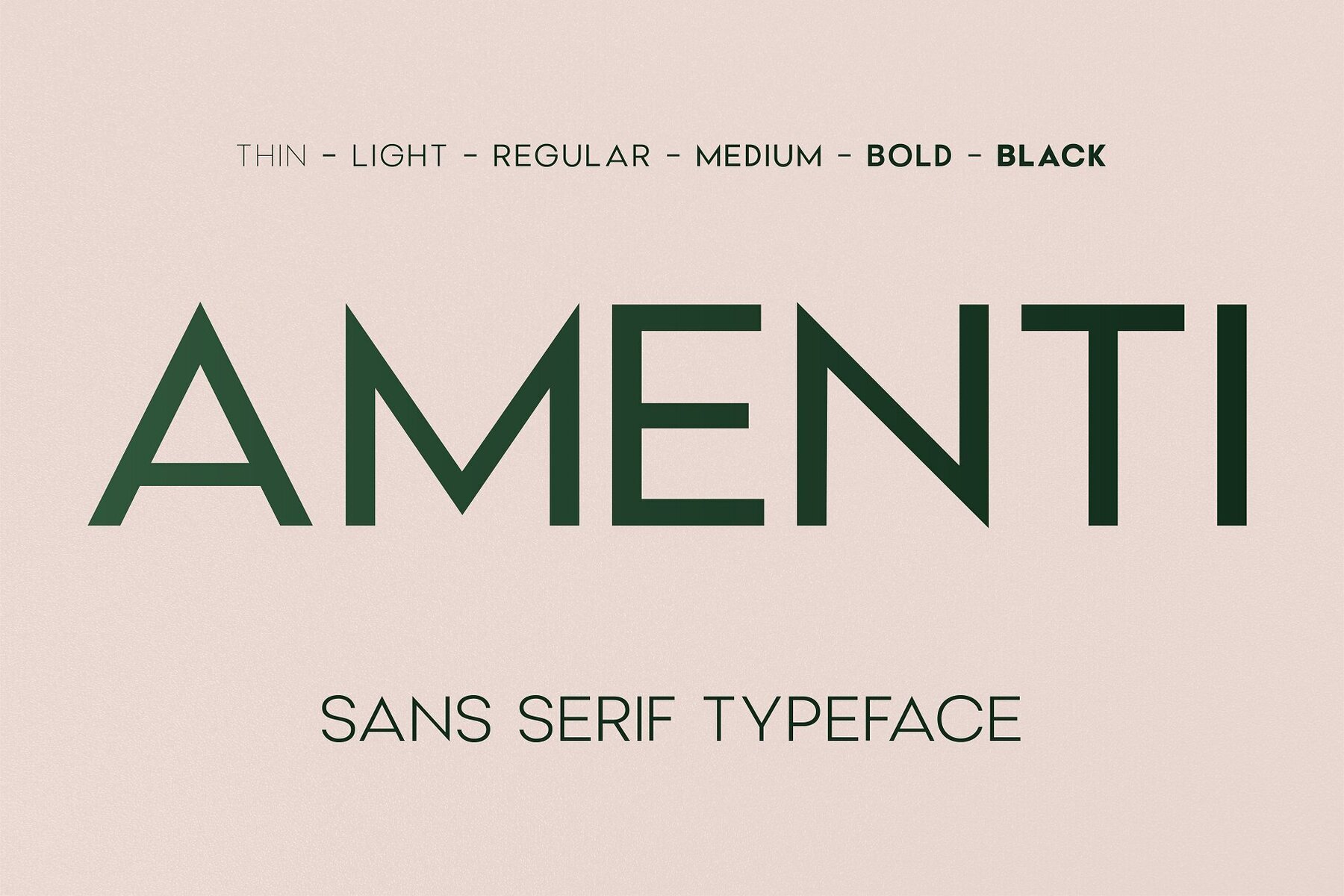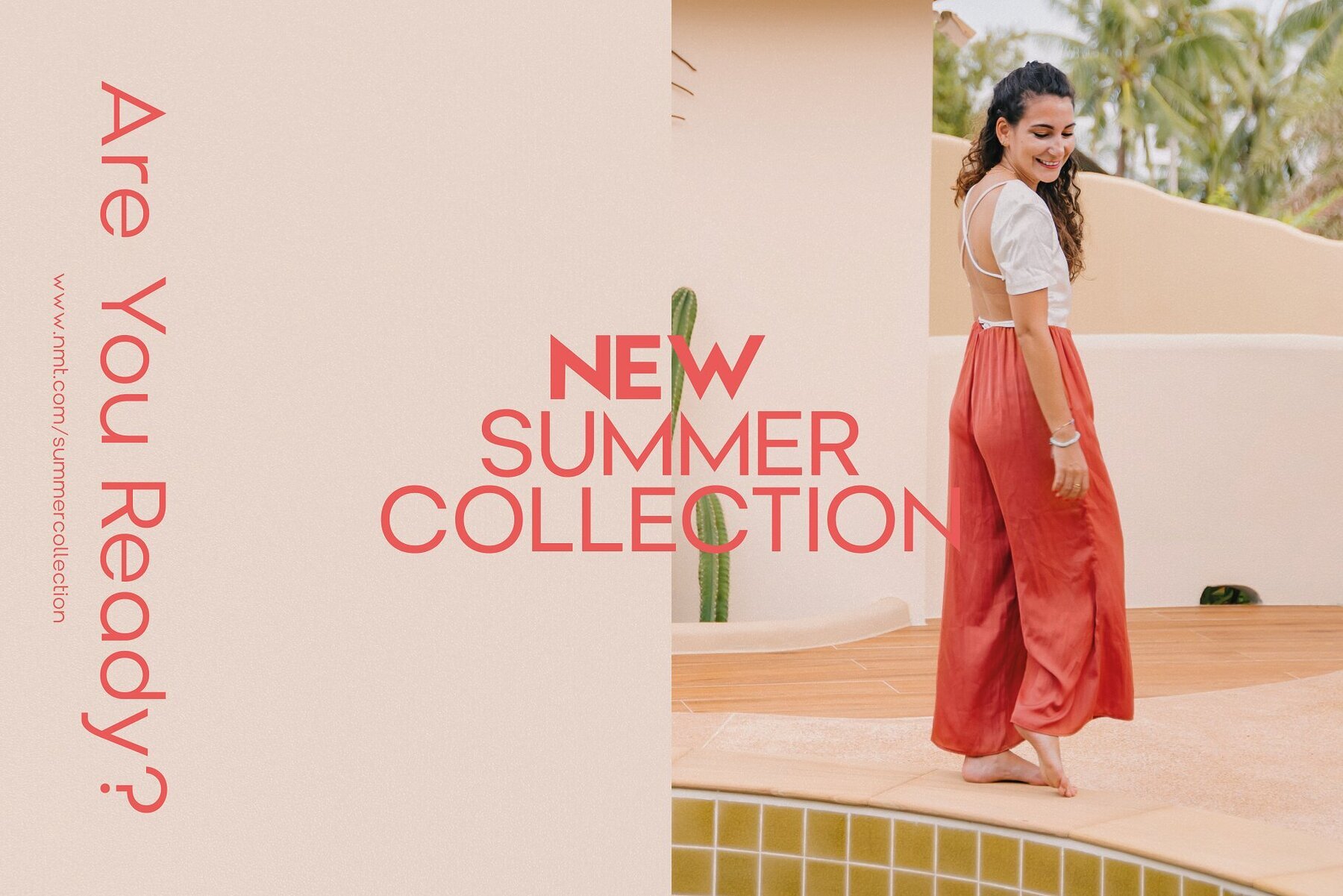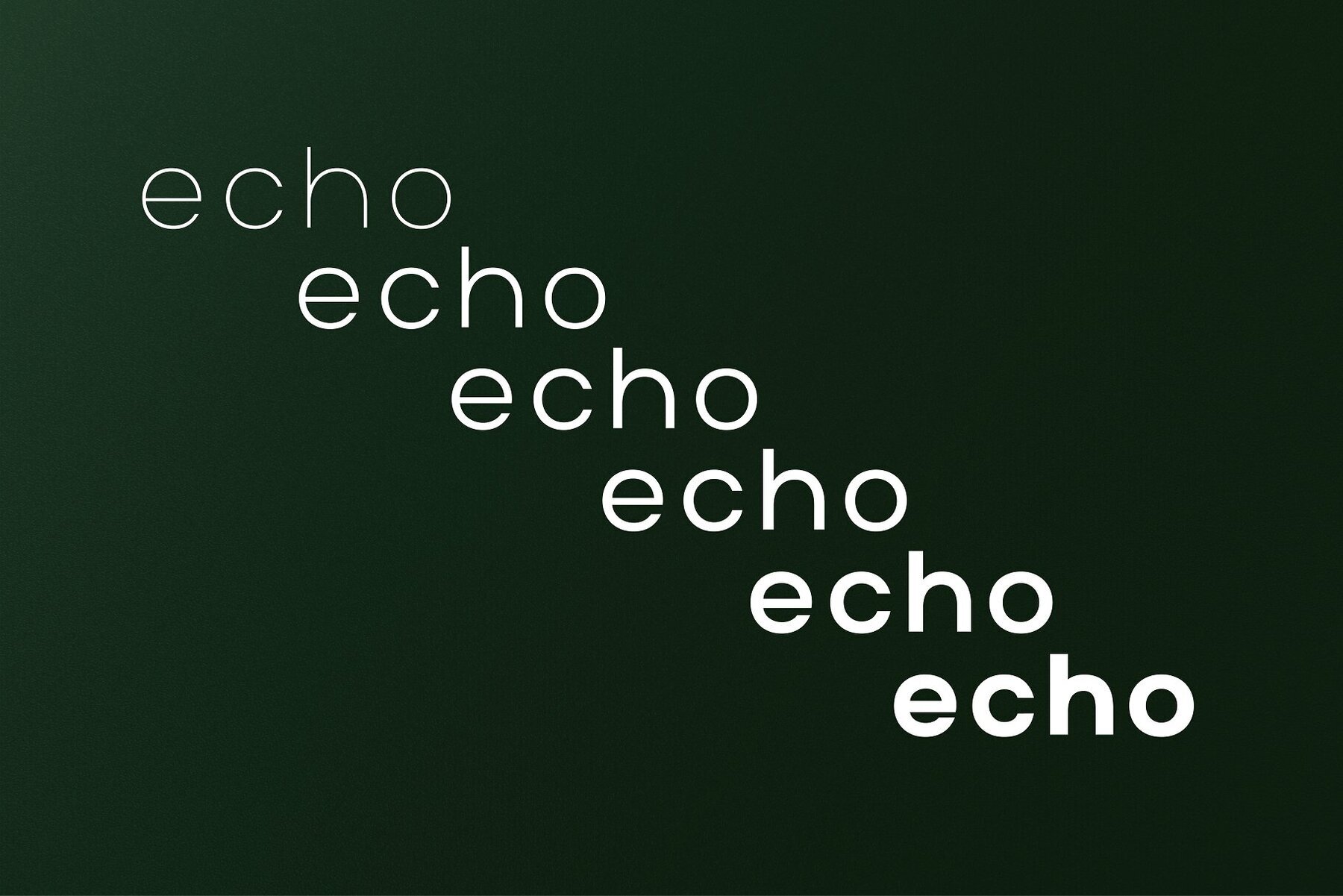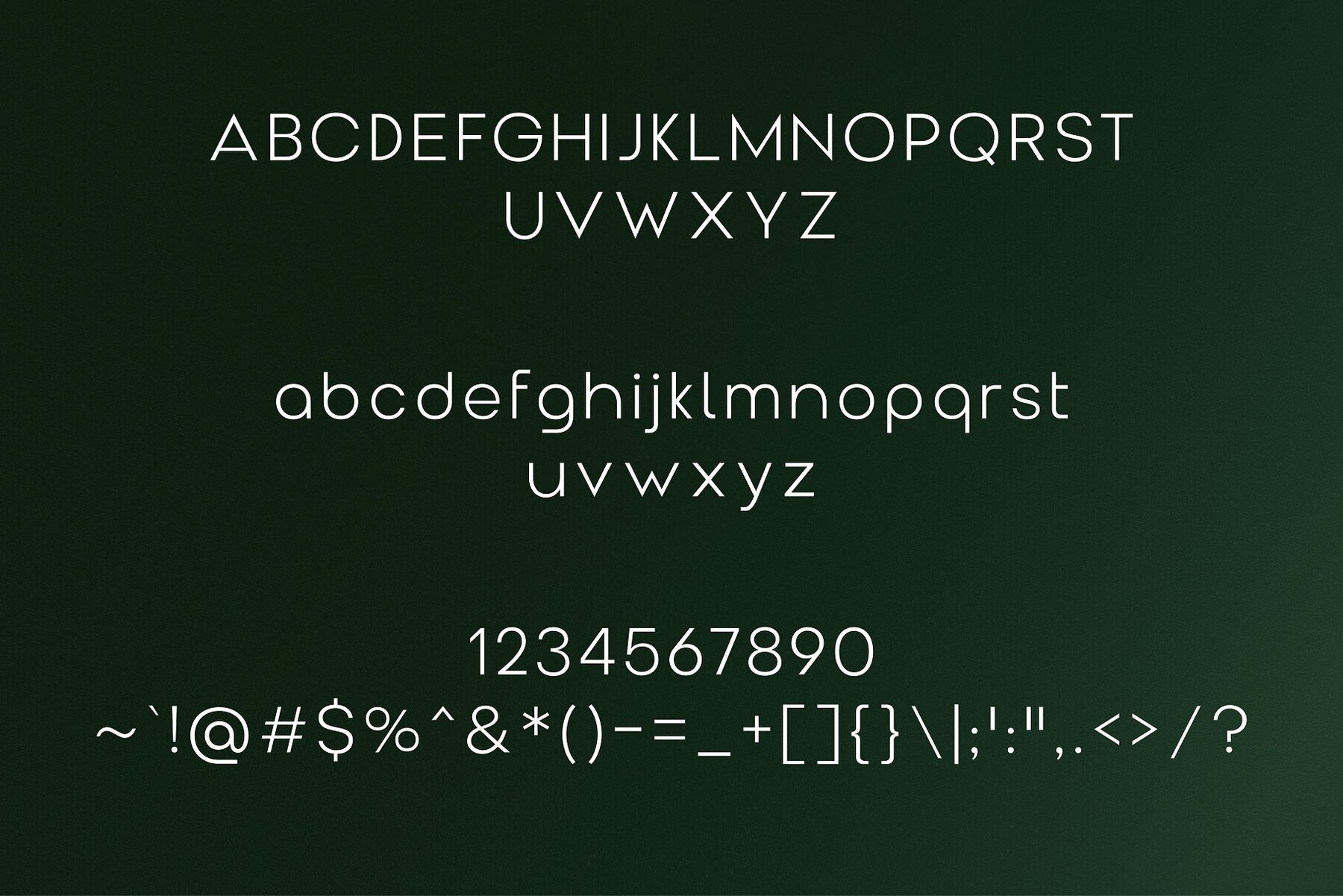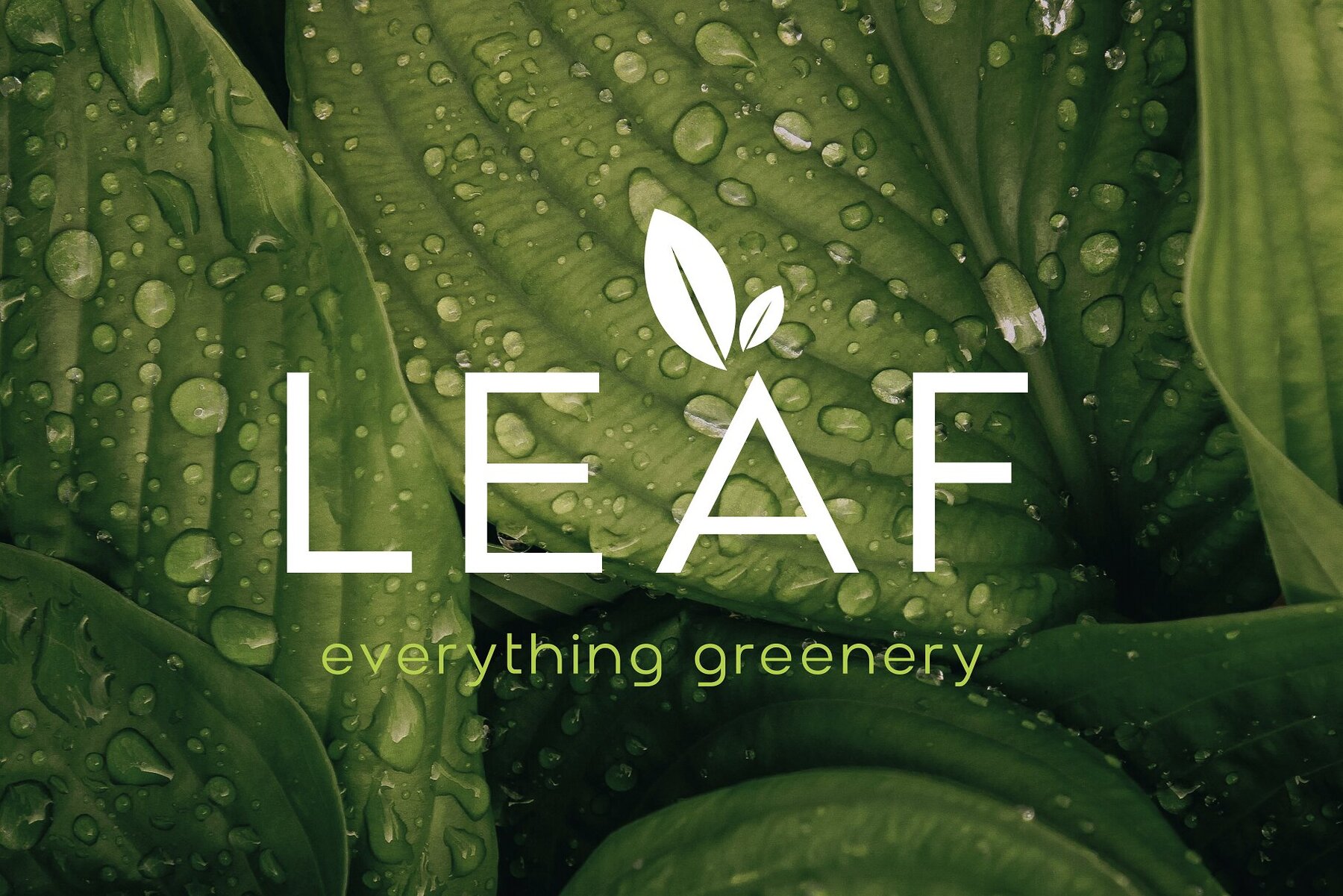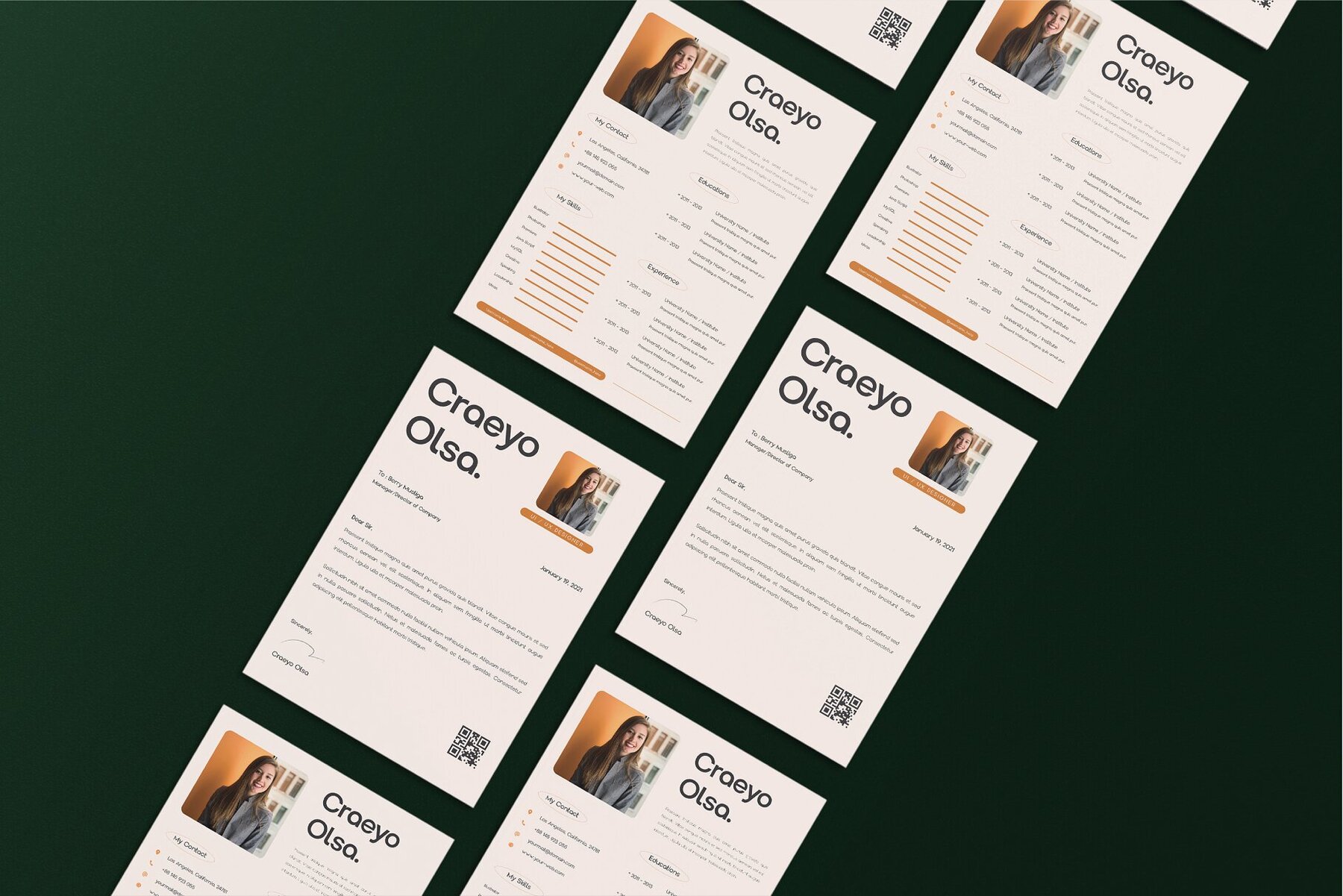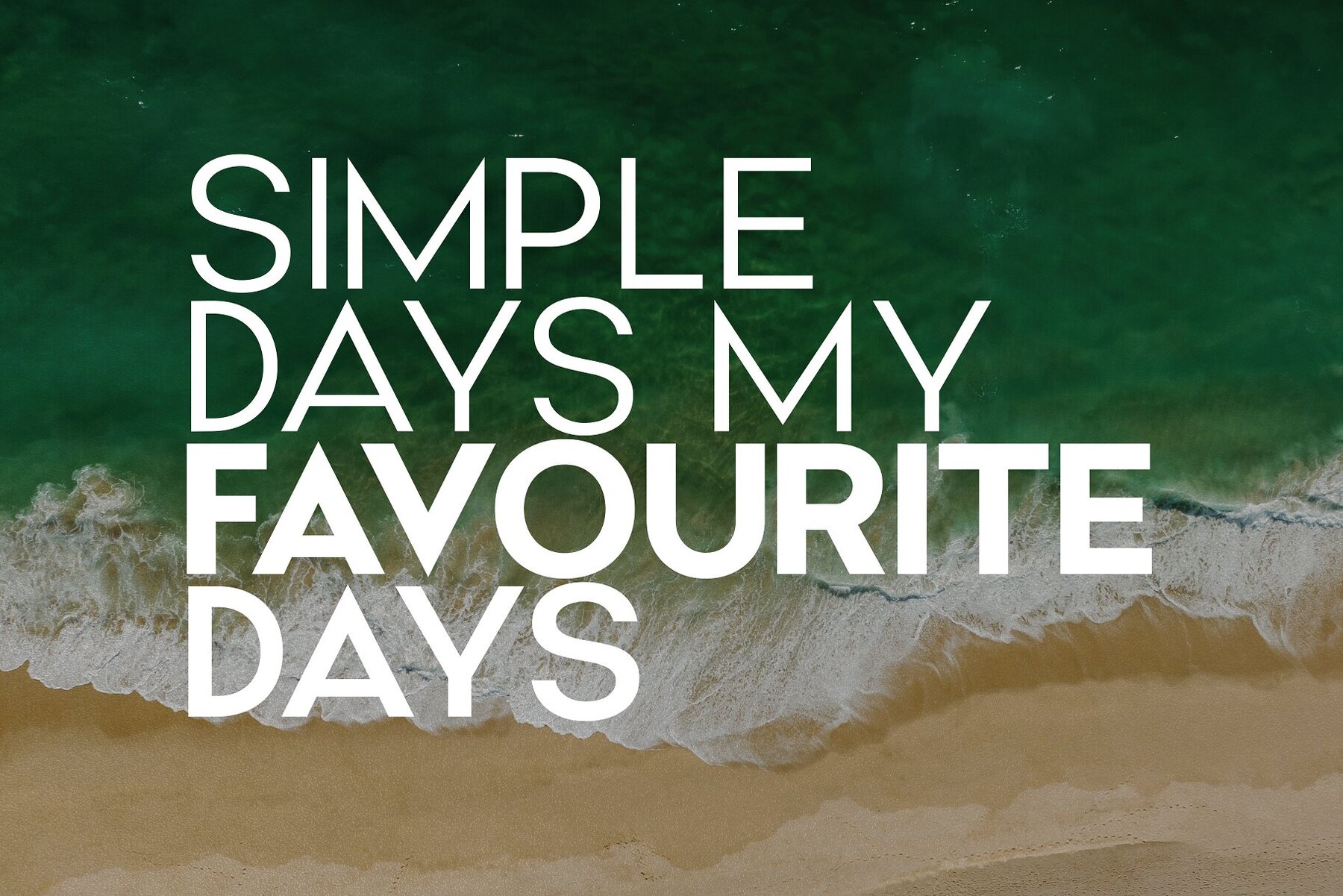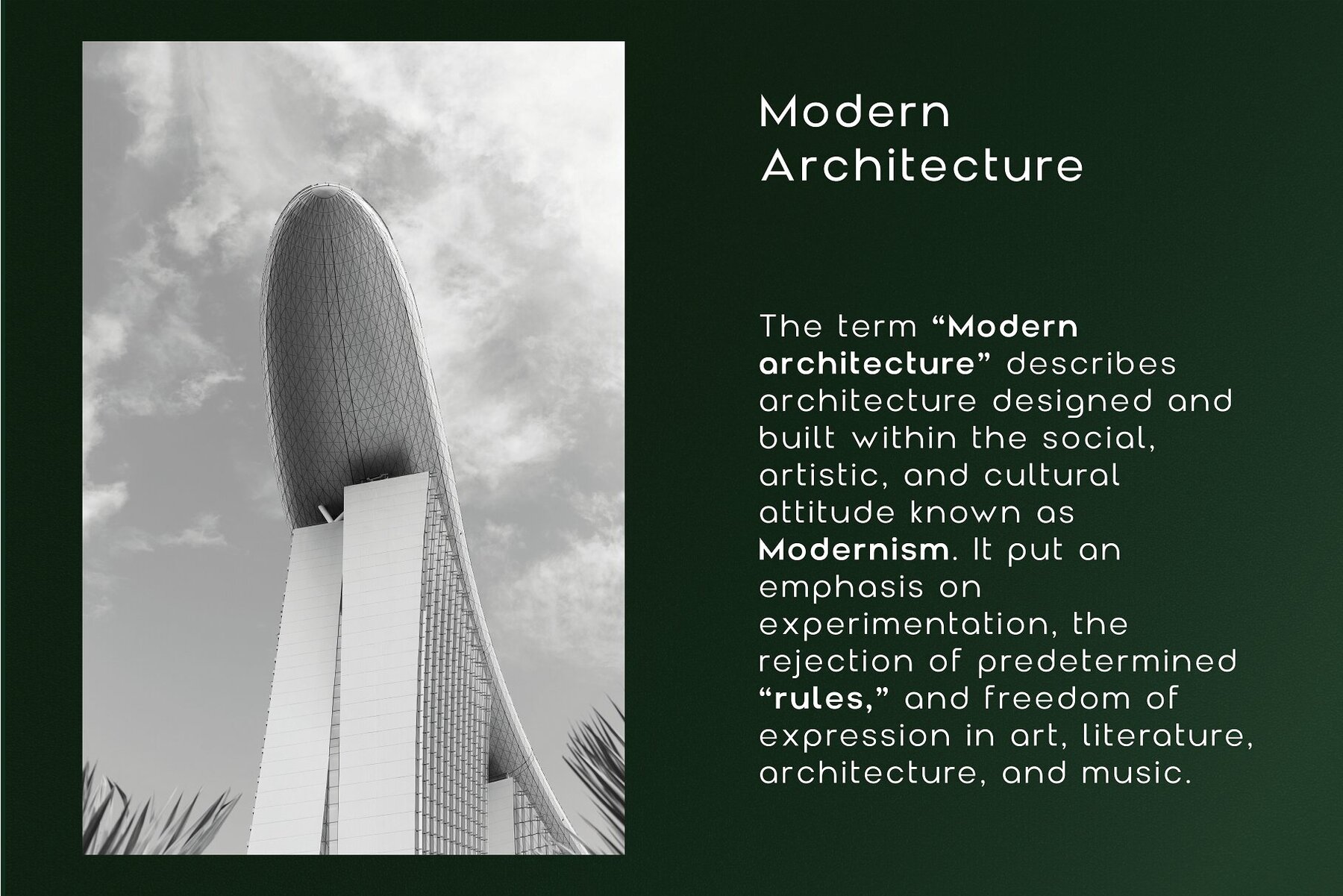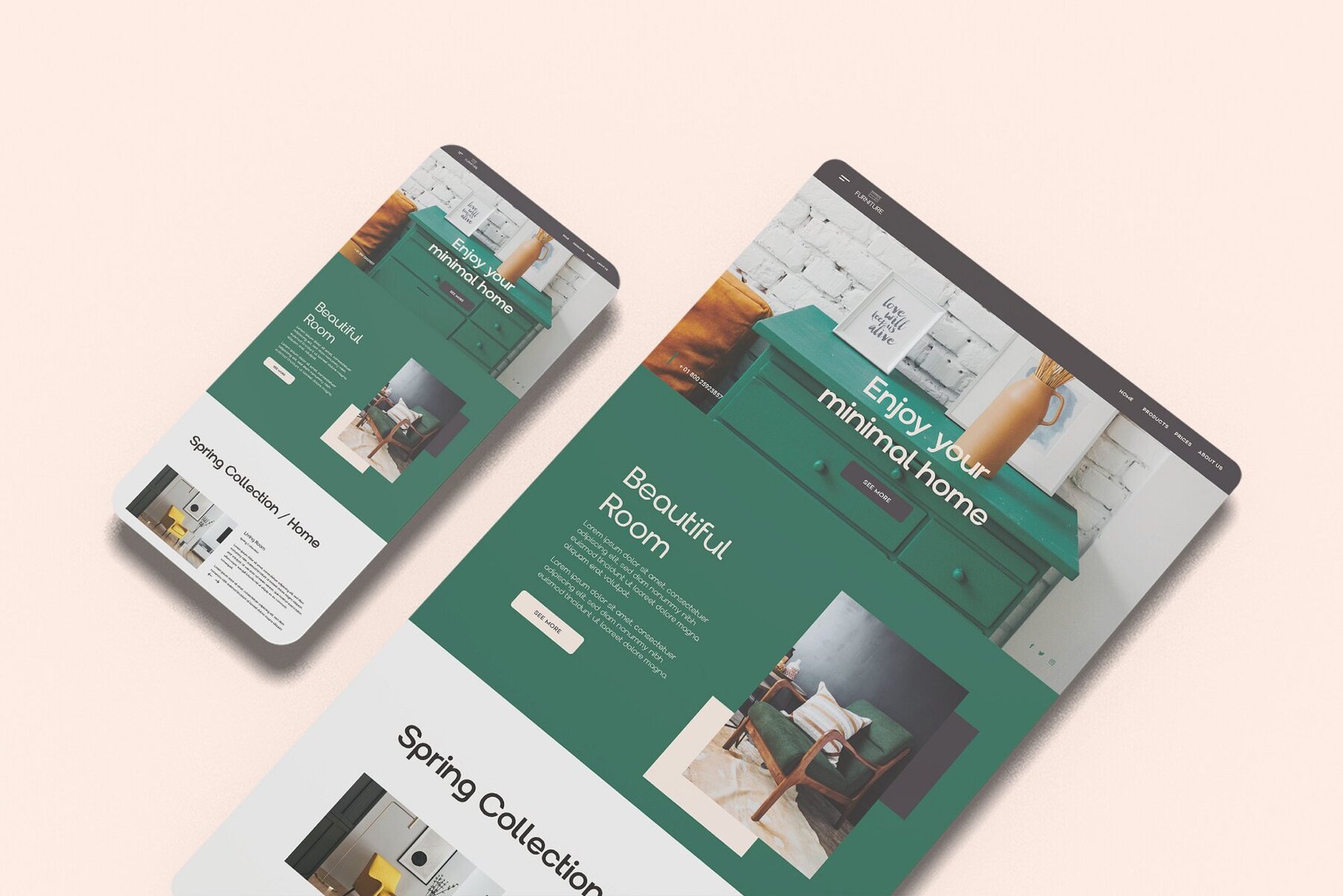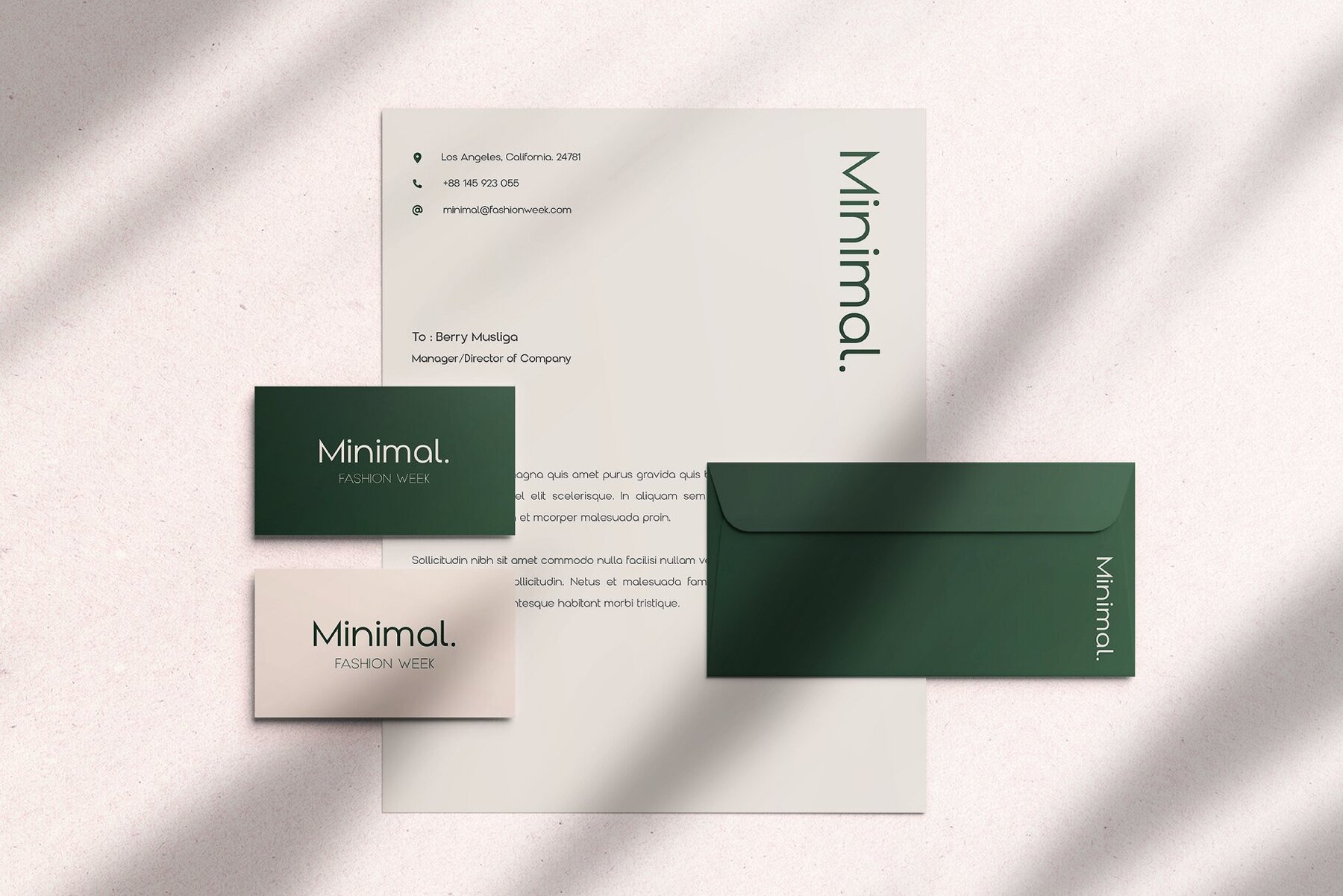
Amenti Font
Introducing Amenti, the epitome of modernity and sophistication. With its clean lines and graceful curves, this font is a sight to behold. Amenti comes in six different weights, each as breathtaking as the last. Its timeless beauty and stylish elegance will leave a lasting impression on anyone who encounters it. Whether used for a branding project, a website, or a printed design, Amenti will elevate any composition to new heights. Its versatility and legibility make it the perfect choice for both display and body text. With Amenti, you can communicate your message with clarity and poise, leaving a lasting impact on your audience.